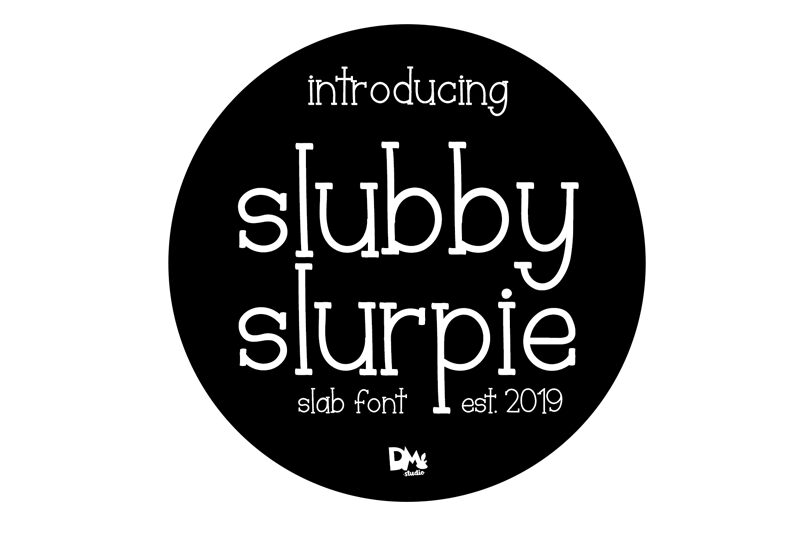
Slubby Slurpie, a delightful display font by Dm Letter Studio - Dimas Prasetyo, brings a playful and animated touch to your designs.
With its semi-light weight, this cartoon-inspired typeface is perfect for children's books, comic strips, and whimsical packaging designs. Its quirky characters and bouncy letterforms add a sense of fun and excitement to any project. Whether you're creating eye-catching logos or captivating posters, Slubby Slurpie is sure to bring a smile to your audience's faces. Let your imagination run wild with this charming font!